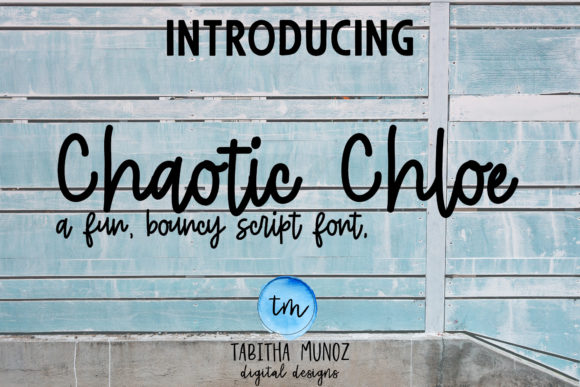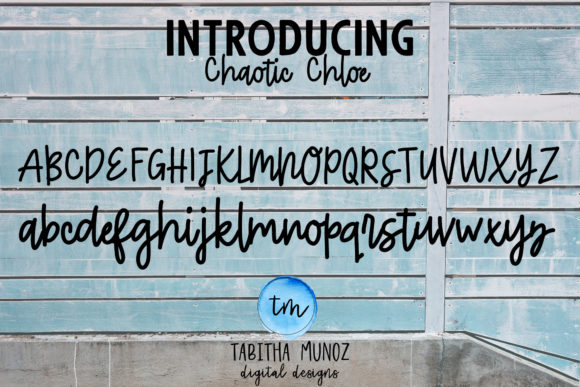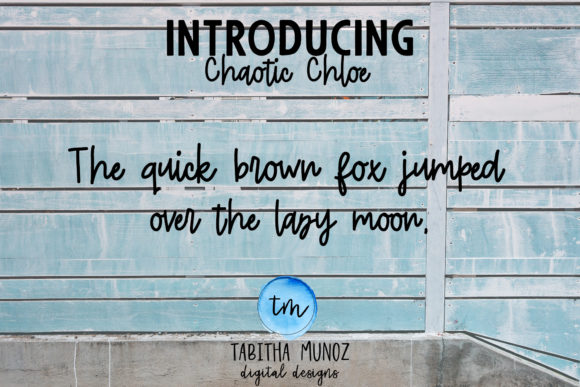
HomeScript FontsChaotic Chloe Font Script Fonts Chaotic Chloe Font FacebookXPinterestWhatsApp Chaotic Chloe Font Poster 2 Chaotic Chloe Font Poster 3 About Chaotic Chloe Font Chaotic Chloe is a fun, bouncy handwritten script font with a magical feel. DOWNLOAD ON CREATIVE FABRICAThis font is sold and delivered by Creative Fabrica. Font Canyon may earn a commission if you buy through this link. People also explored Golden Grows Font Beasley Font Orleans Font Selfless Font Coltine Font Vontage Font Attang Script – Handwritten Font Kalia Monogram Font Green House Font 311 0 TagsChaotic Chloe Font Previous articleBrighter FontNext articleAfterglows Font LEAVE A REPLY Cancel reply Comment: Please enter your comment! Name:* Please enter your name here Email:* You have entered an incorrect email address! Please enter your email address here Website: Save my name, email, and website in this browser for the next time I comment. Personal Use Free Quick Count Personal Use Free Read more about this font Eigha Personal Use Free Read more about this font Abuget Free Script Personal Use Free Read more about this font Green Farmhouse Personal Use Free Read more about this font BLOG Top 10 Handwritten Fonts That Elevate Your Designs Top 10 Handwritten Fonts That Will Elevate Your Designs Handwritten fonts bring a warm, personal touch to every creative project. Whether you're designing logos, invitations,... Using Fonts in Digital Marketing: Tips to Strengthen Your Brand Identity 5 Fonts That Will Dominate Design Trends in 2026 Top 7 Google Fonts Alternatives for Faster and Privacy-Friendly Web Design (2025)